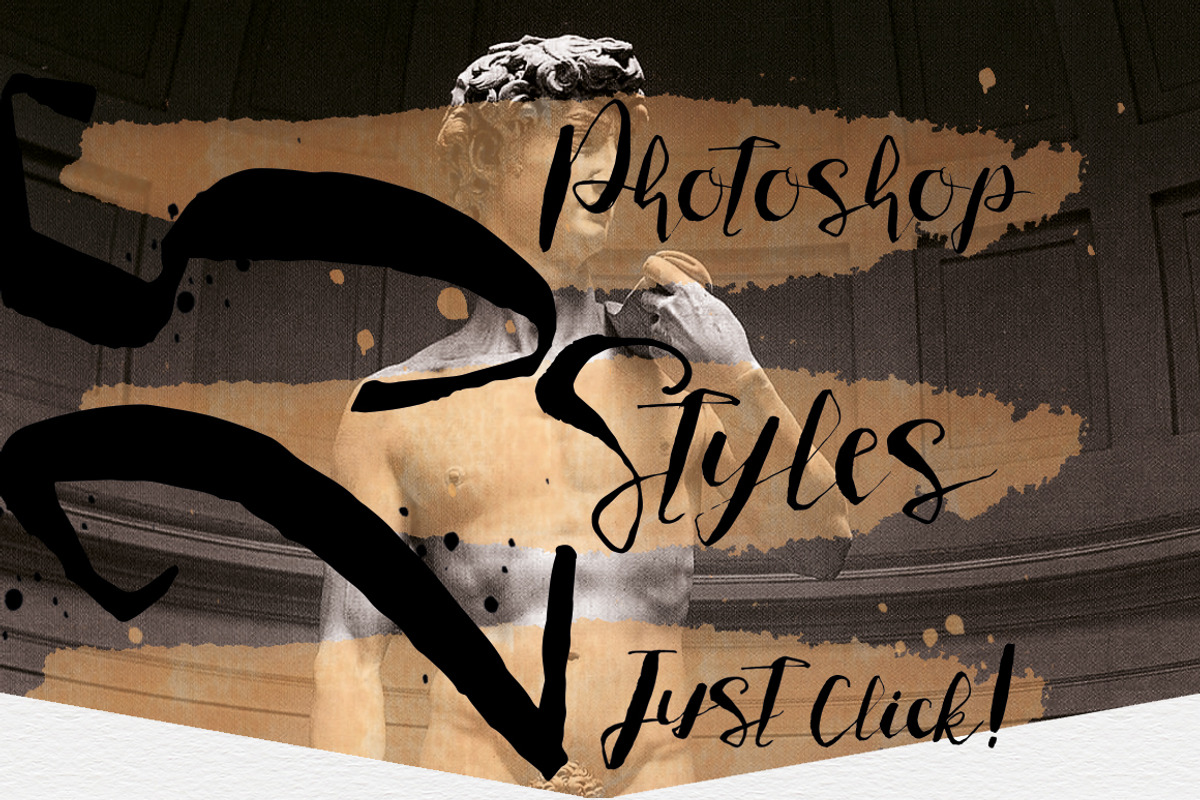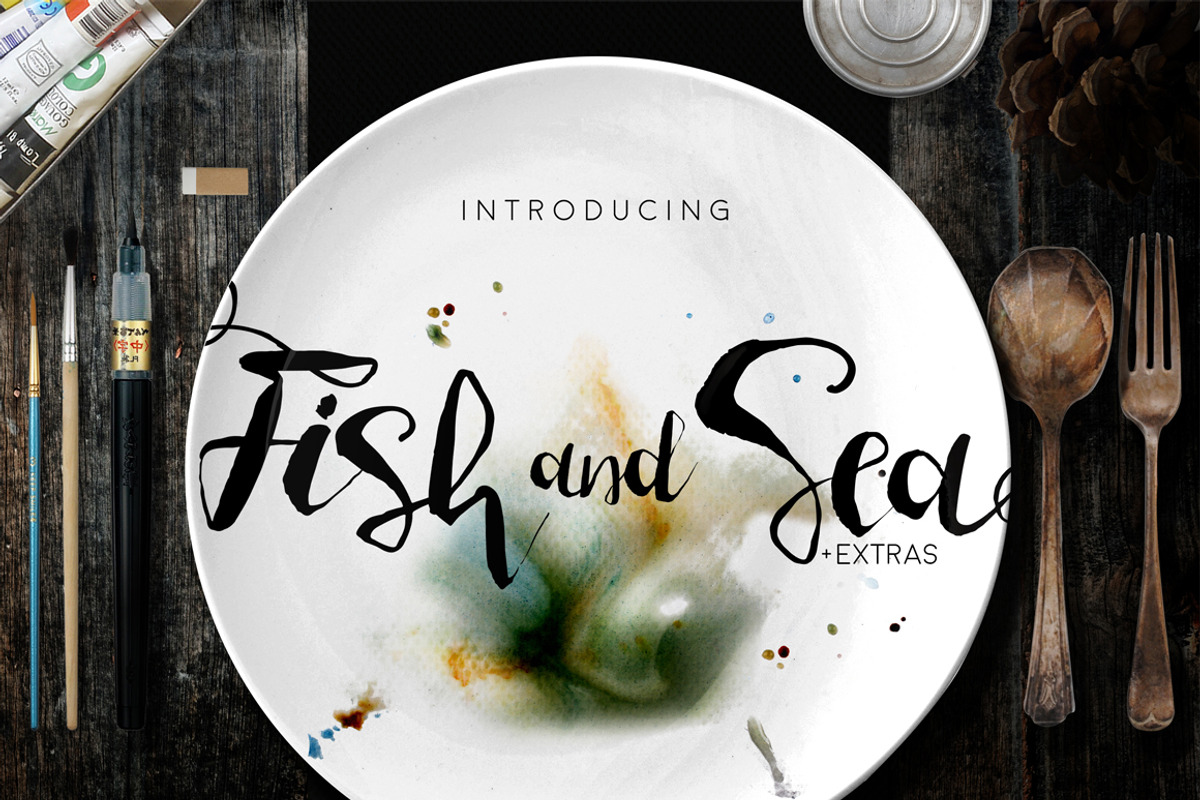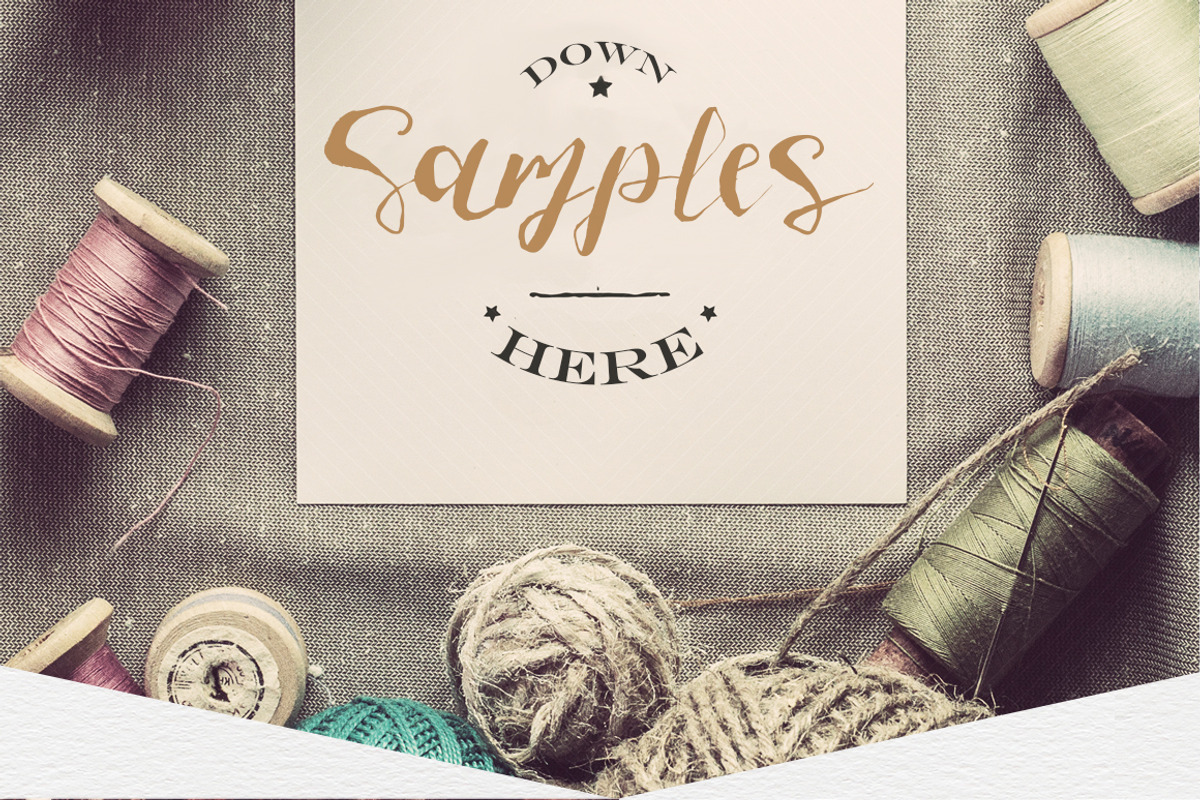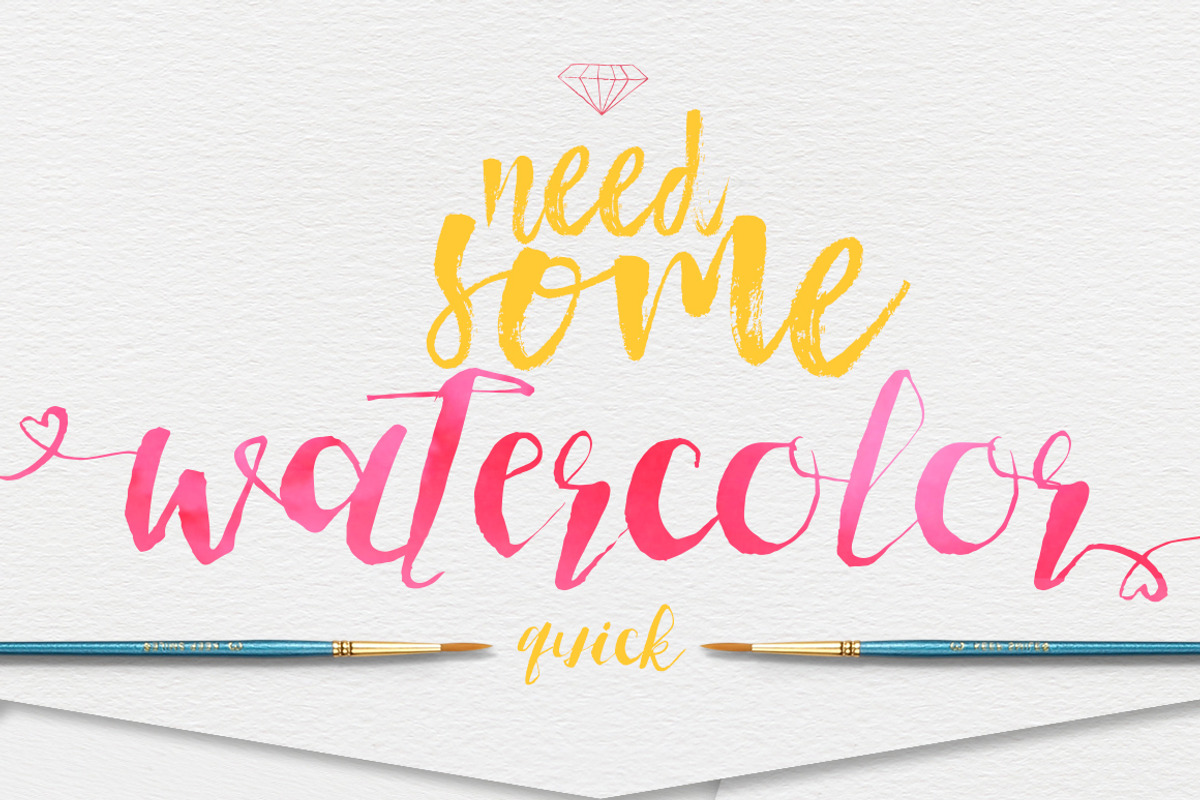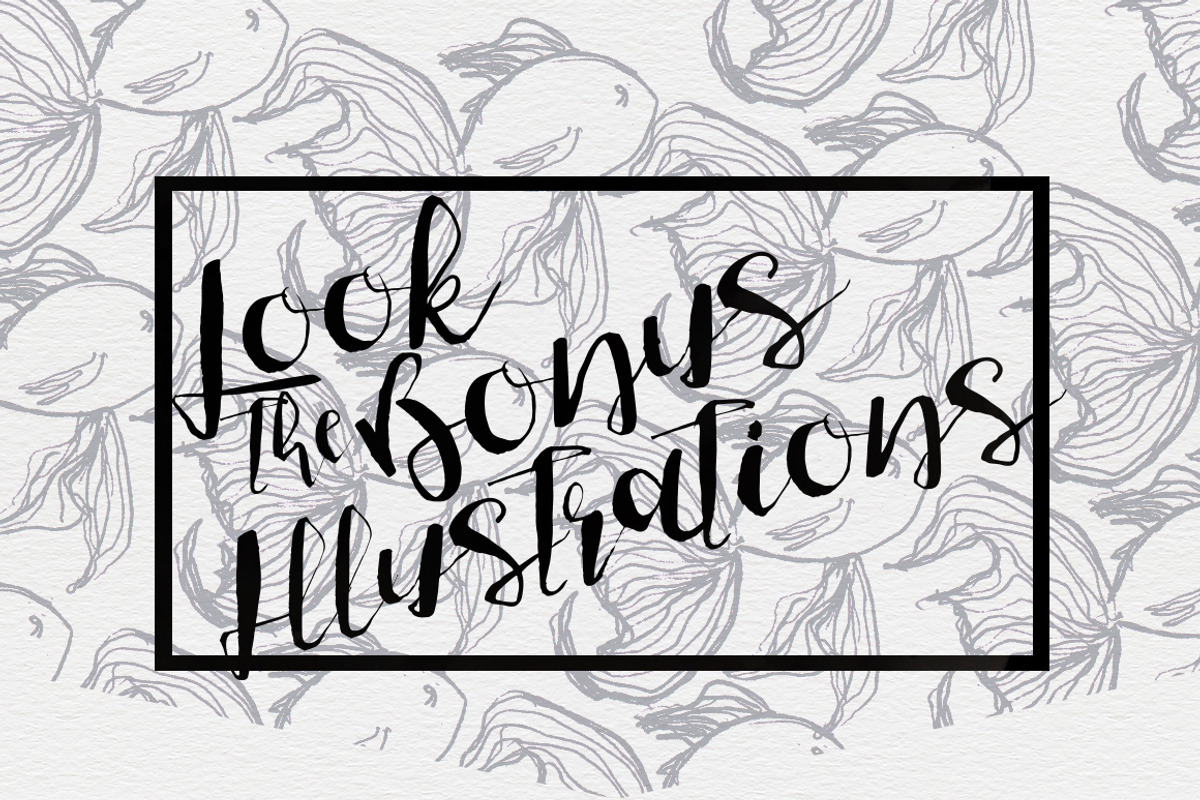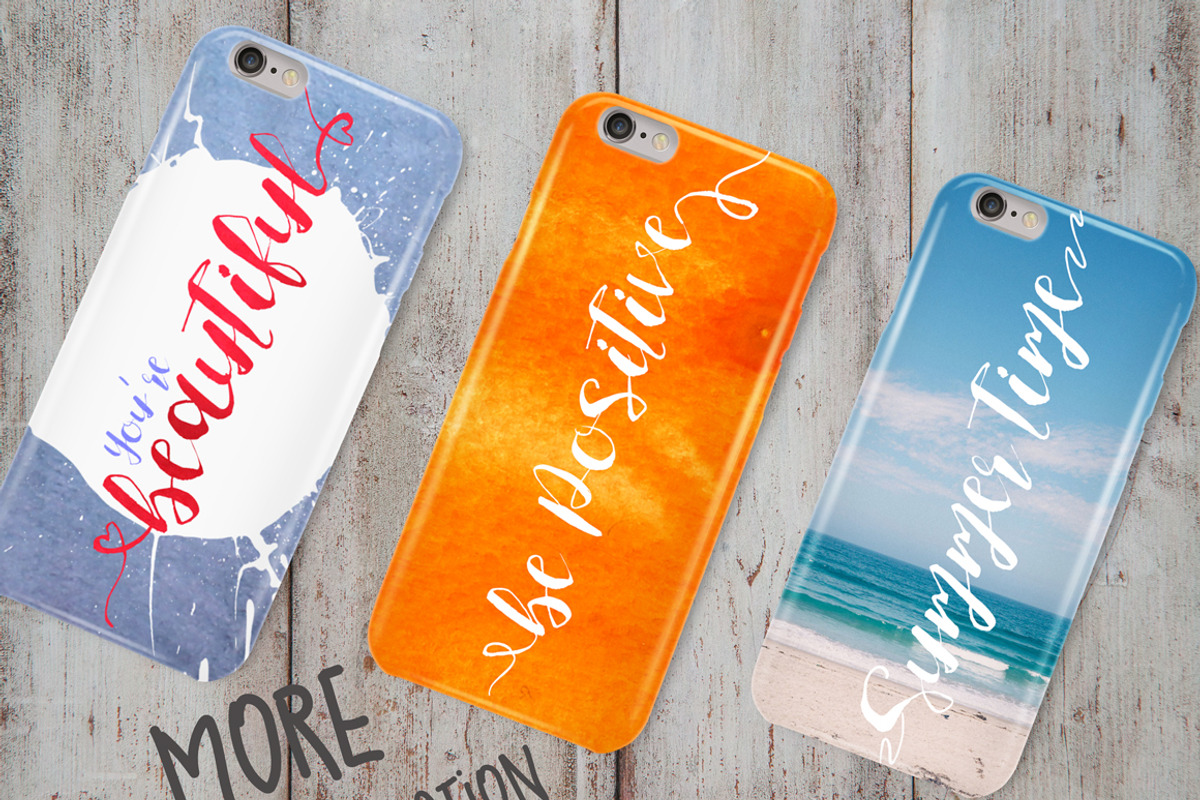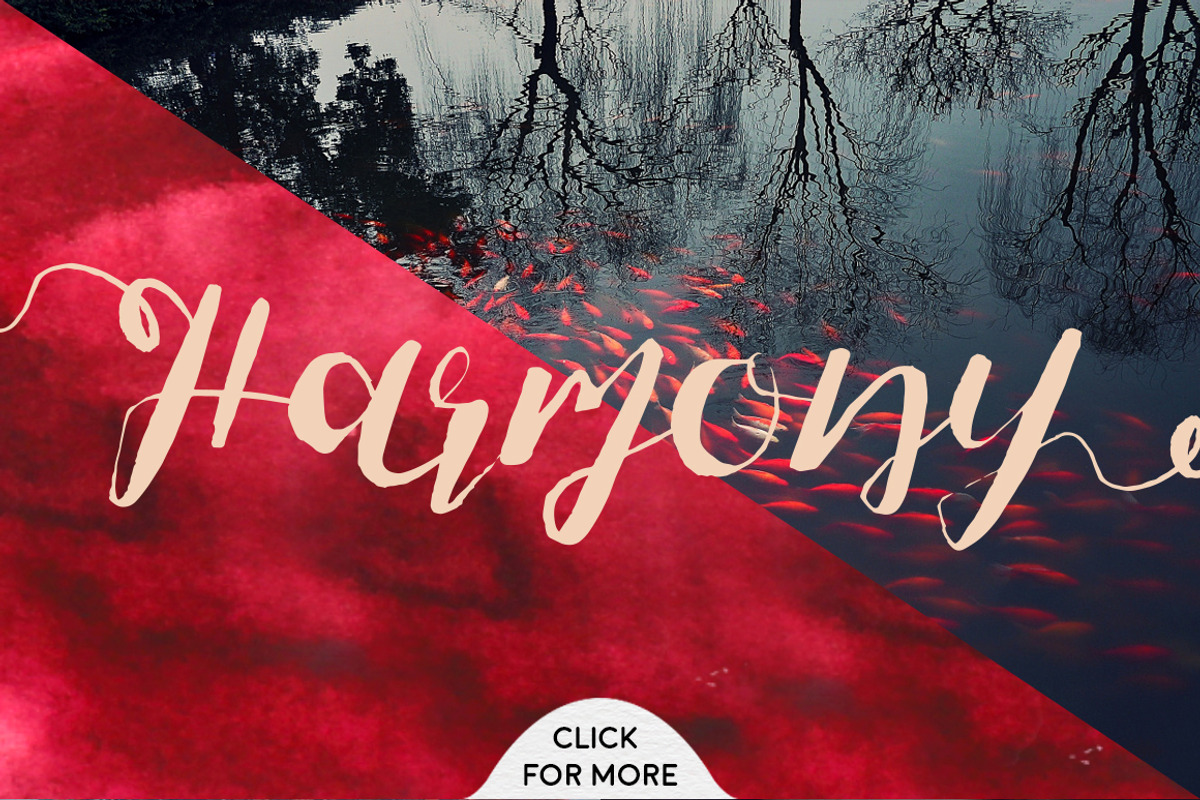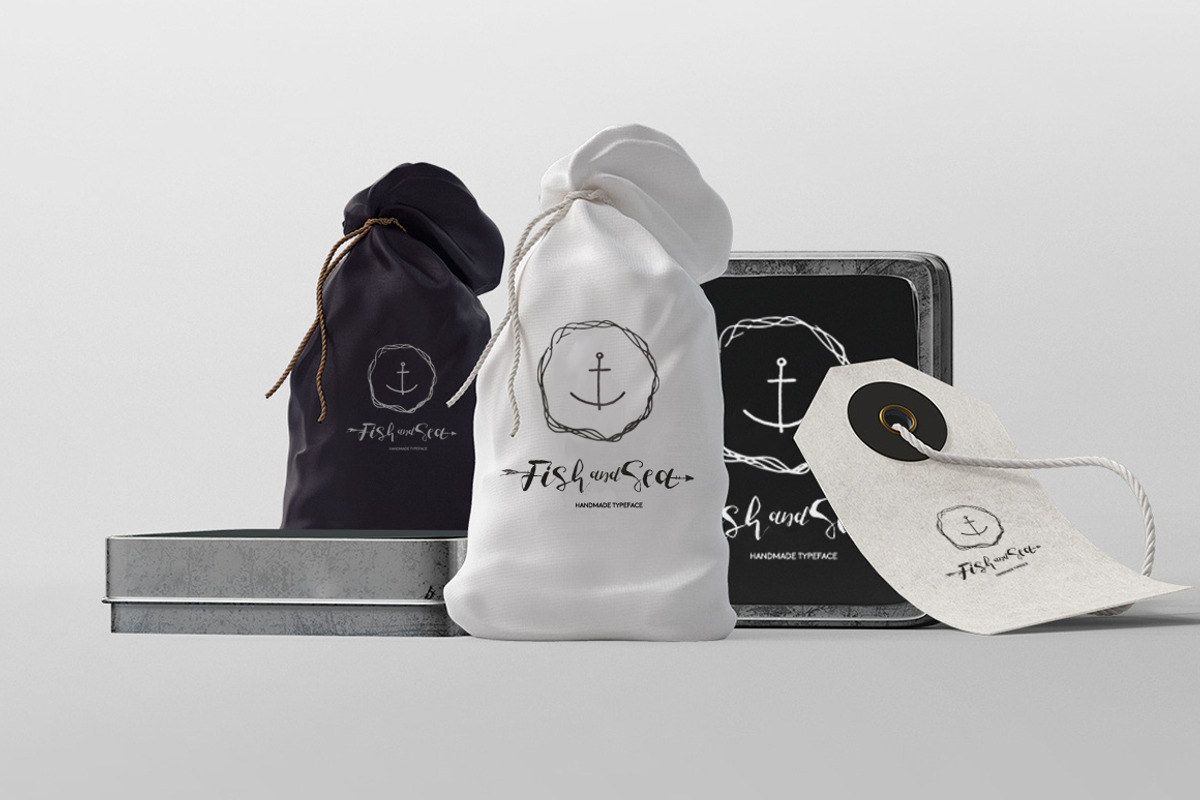
Fish and Sea Typeface+Extras
Fish and Sea Typeface+Extras by Yasir Ekinci is a font selected for branding, posters, packaging, typography.
- New hand lettering font Fish and Sea , comes with strong extras pack , innovation , loveliness and 35 ornaments font!!..
- With more than 230 characters Fish and Sea is waiting for you ready to create your design.Also you can use ligatures.
Why Fish and Sea Typeface+Extras is worth a look
Fish and Sea Typeface+Extras by Yasir Ekinci fits naturally into Branding, posters, packaging, typography.